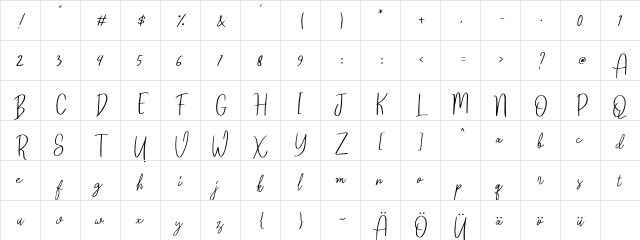
Reghina Font Regular
Design Context for Reghina Font Typeface
Reghina Font is a composed and adaptable typeface that performs quietly and consistently across a wide range of design contexts.